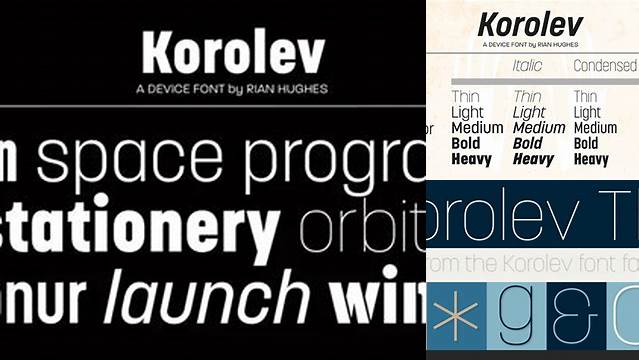
Are you on the hunt for the perfect font to elevate your design projects? Well, guys, you've come to the right place! Let's dive deep into the world of Korolev font, a typeface that has been making waves in the design community. In this comprehensive guide, we'll explore everything you need to know about Korolev font, including its origins, characteristics, usage, and, most importantly, where you can snag it for free. So, buckle up and get ready to become a Korolev font aficionado!
What is Korolev Font?
When it comes to selecting a font, understanding its essence and historical context can greatly influence your design choices. Korolev font, named in honor of the Soviet rocket engineer Sergei Korolev, carries with it a legacy of innovation and precision. This font is not just a set of characters; it's a piece of history, a nod to the golden age of space exploration. The design of Korolev font reflects a blend of mid-century modern aesthetics and geometric simplicity, making it a versatile choice for a wide range of applications. Its clean lines and balanced letterforms evoke a sense of clarity and sophistication, making it ideal for both body text and headlines.
The font's creation was inspired by the visual language of the Soviet space program, a time when technology and design were deeply intertwined. Designers sought to capture the spirit of progress and the forward-thinking mindset of the era. Korolev font embodies this aspiration, with each character meticulously crafted to ensure legibility and visual appeal. The font family often includes a variety of weights and styles, from light and airy to bold and impactful, providing designers with the flexibility to express different moods and tones. Whether you're working on a website, a poster, or a branding project, Korolev font offers a unique and compelling voice. Its understated elegance makes it a timeless choice, capable of transcending fleeting trends. By choosing Korolev font, you're not just selecting a typeface; you're embracing a design philosophy that values clarity, precision, and historical context. The font's ability to convey both technical precision and artistic flair is what sets it apart, making it a favorite among designers who seek to blend form and function.
The Design and Characteristics of Korolev Font
To truly appreciate Korolev font, let's break down its design and key characteristics. Korolev font is often described as a geometric sans-serif typeface, which means it's based on simple geometric shapes and lacks the small decorative strokes (serifs) found in traditional fonts like Times New Roman. This gives it a modern and minimalist feel, perfect for contemporary designs. One of the standout features of Korolev font is its clean and legible letterforms. Each character is carefully crafted to ensure readability, whether it's used in large headlines or smaller body text. The font's proportions are well-balanced, creating a harmonious visual rhythm that's easy on the eyes.
The x-height, which refers to the height of the lowercase letters, is generous, contributing to its overall legibility. This is particularly important for digital applications, where fonts need to be clear and readable on screens of various sizes. The spacing between letters is also thoughtfully considered, ensuring that words and sentences flow smoothly. Another notable characteristic of Korolev font is its versatility. It comes in a range of weights, from light to bold, allowing designers to create visual hierarchy and emphasis within their designs. The different weights offer a spectrum of tones, from subtle and refined to strong and assertive. This makes Korolev font suitable for a wide variety of projects, from branding and logos to editorial design and web typography. The font's geometric structure also lends itself well to graphic elements and illustrations. Its clean lines and simple shapes can be easily integrated into logos and other visual elements, creating a cohesive and professional look. Moreover, Korolev font often includes stylistic alternates and ligatures, which are special characters that add a touch of uniqueness and sophistication to the typeface. These features allow designers to further customize the font and create distinctive typographic compositions. In essence, Korolev font is a blend of functionality and aesthetics. It's a font that not only looks good but also performs well in a variety of design contexts. Its geometric simplicity, balanced proportions, and versatile weights make it a valuable asset for any designer's toolkit.
Common Uses for Korolev Font
Korolev font's versatility makes it a popular choice across various design disciplines. Let's explore some common uses for this fantastic font. In the realm of branding, Korolev font shines as a logo typeface. Its clean, modern lines convey a sense of professionalism and sophistication, making it ideal for companies looking to establish a strong visual identity. Think tech startups, creative agencies, and modern businesses that want to project a forward-thinking image. Beyond logos, Korolev font is also excellent for website design. Its legibility on screens makes it a great choice for body text, headlines, and navigation menus. The font's clean aesthetic ensures that content is easily readable and visually appealing, enhancing the overall user experience. Many websites use Korolev font to create a sense of clarity and simplicity, which is particularly important in today's fast-paced digital world.
In the world of print design, Korolev font is equally at home. It's a fantastic choice for editorial layouts, such as magazines and brochures. Its balanced proportions and clear letterforms make it easy to read long passages of text, while its modern aesthetic adds a touch of style. Korolev font can also be used for posters and flyers, where its bold weights can create eye-catching headlines and its lighter weights can provide supporting information. The font's versatility allows designers to create visually engaging layouts that effectively communicate their message. Another area where Korolev font excels is in packaging design. Its clean and minimalist style makes it a great choice for product labels and packaging, especially for products that aim to convey a sense of modernity and sophistication. Whether it's a sleek cosmetics package or a minimalist food label, Korolev font can help create a strong visual impact on the shelf. Furthermore, Korolev font is often used in presentations and reports. Its professional and legible appearance makes it an excellent choice for conveying information clearly and effectively. The font's clean lines ensure that text is easy to read, even in smaller sizes, making it ideal for slides and documents. In short, Korolev font is a versatile workhorse that can be used in a wide range of design projects. Its clean lines, modern aesthetic, and excellent legibility make it a go-to choice for designers looking to create impactful and professional visuals.